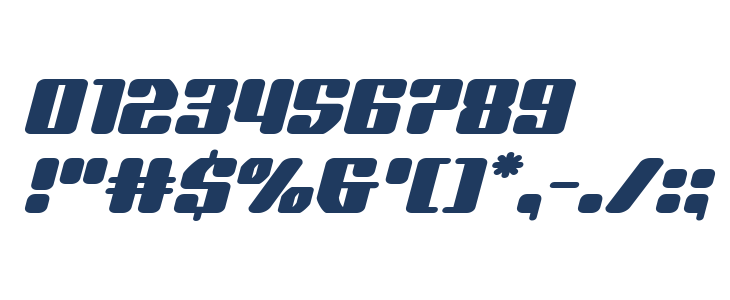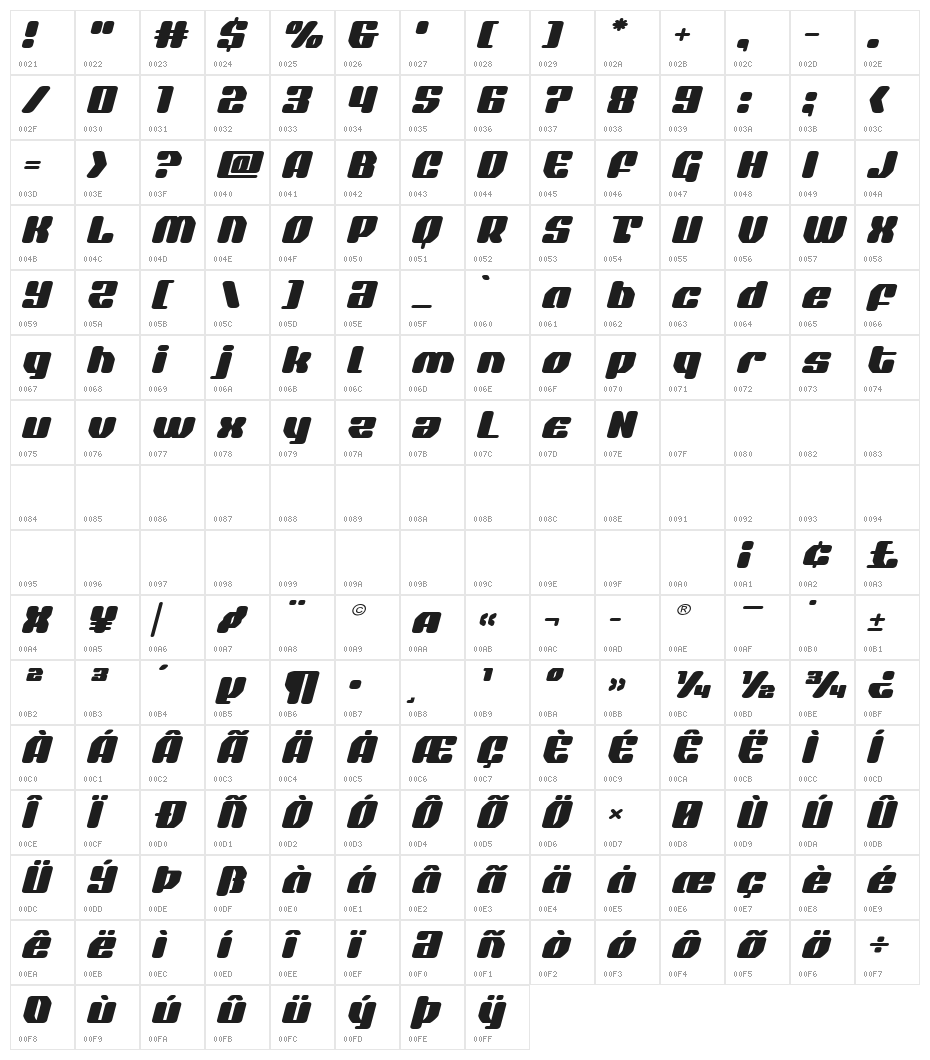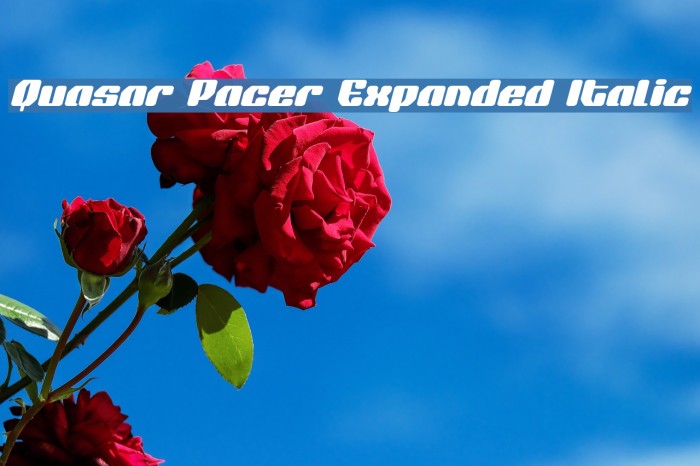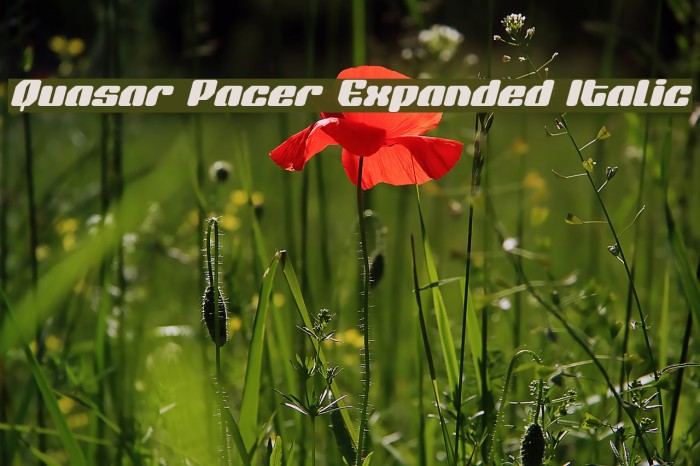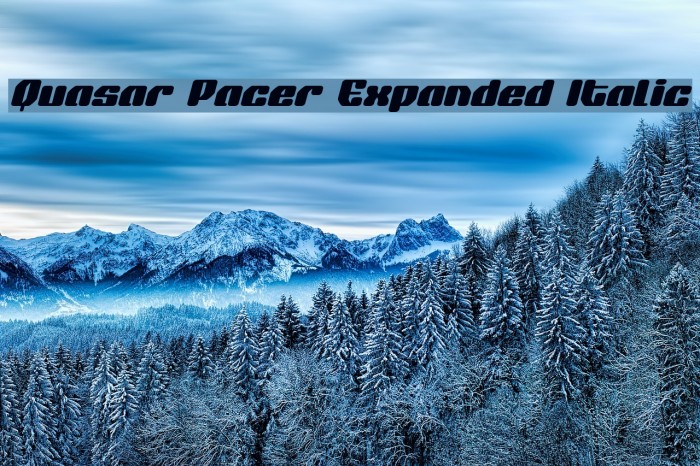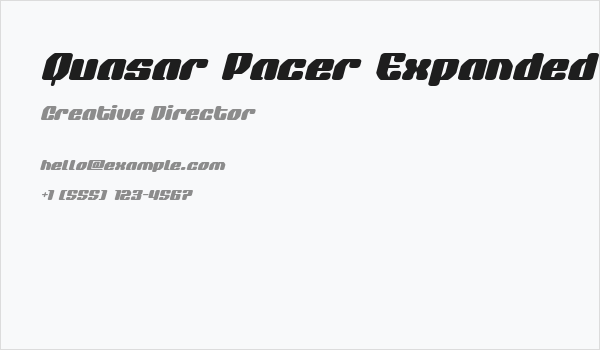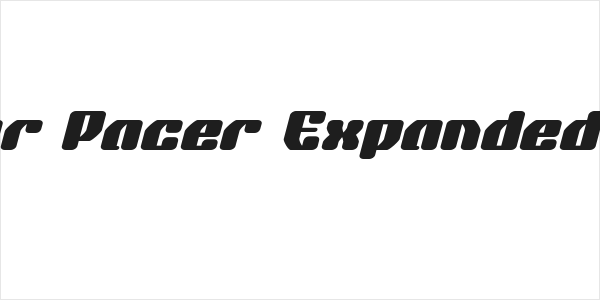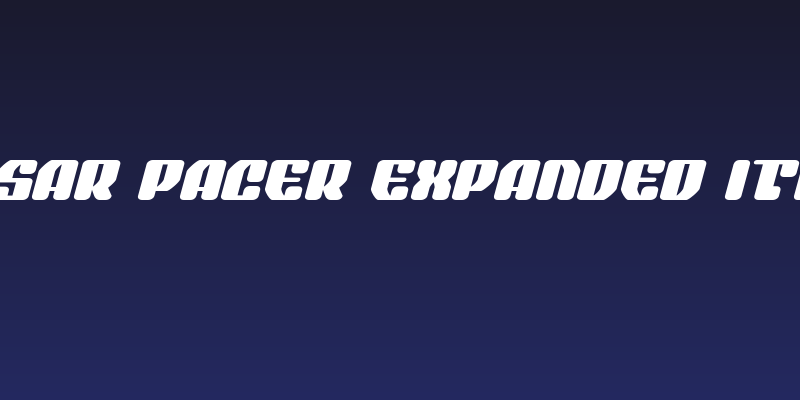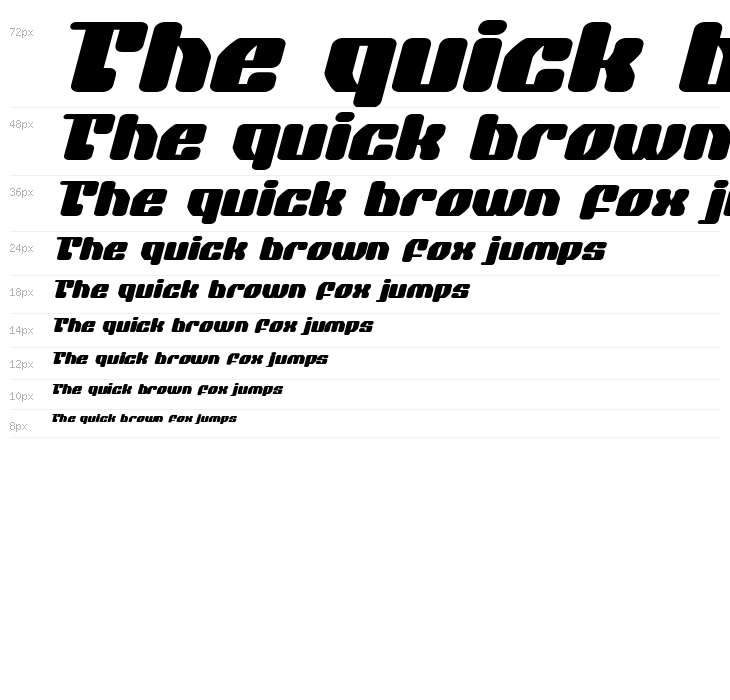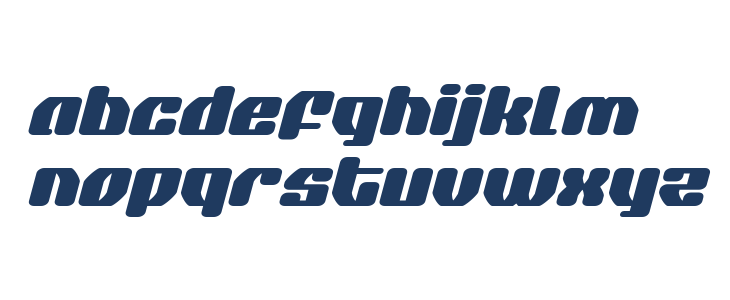
Quasar Pacer Expanded Italic Font
Quasar Pacer Expanded Italic Description
This font features a bold and dynamic style with a distinctly modern and futuristic appearance. The characters are expanded and italicized, giving them a sense of motion and energy. The strokes are thick and consistent, providing a strong visual impact. The design is geometric with rounded edges, which softens the boldness slightly and adds a unique flair. The uppercase and lowercase letters maintain a uniform style, ensuring readability while still being visually striking. Numbers and special characters are designed to match the overall aesthetic, making this font versatile for various uses.